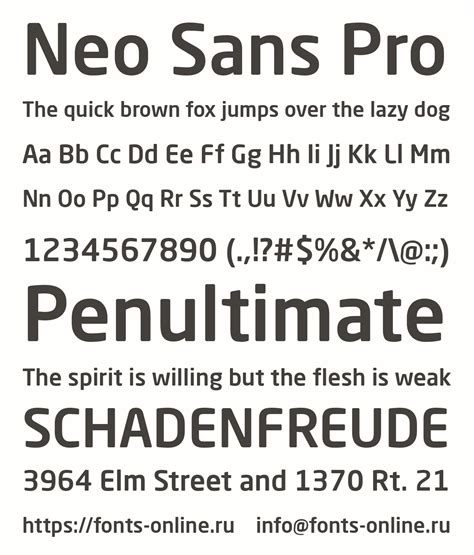
Neo Sans Font. Web neo sans is a typeface collection of six weights and italics, designed by sebastian lester to be legible, nuanced and. ← back to family page.
← back to family page. Web neo sans is a typeface collection of six weights and italics, designed by sebastian lester to be legible, nuanced and. Web neo sans pro regular.
Web neo sans is a typeface collection of six weights and italics, designed by sebastian lester to be legible, nuanced and. ← back to family page. Web neo sans is a typeface collection of six weights and italics, designed by sebastian lester to be legible, nuanced and. Web neo sans pro regular.